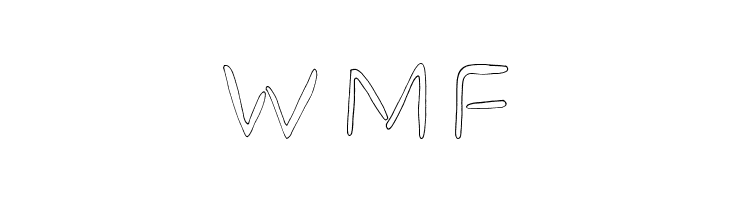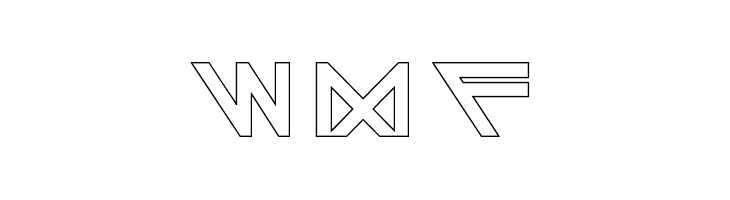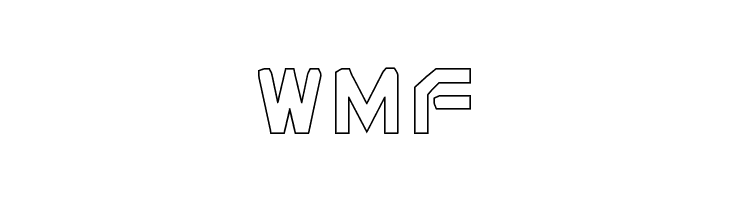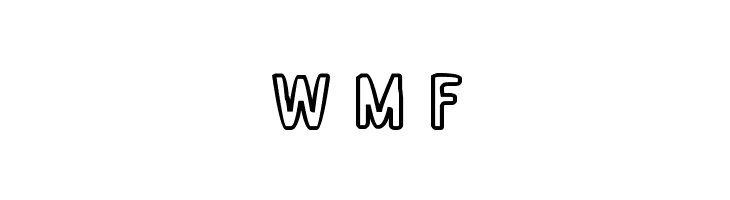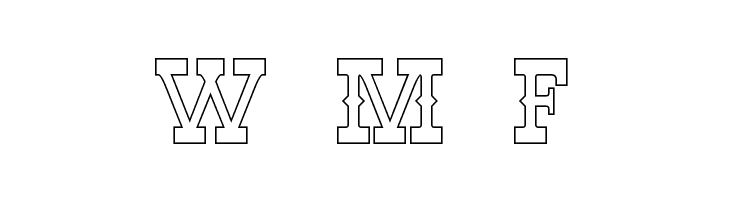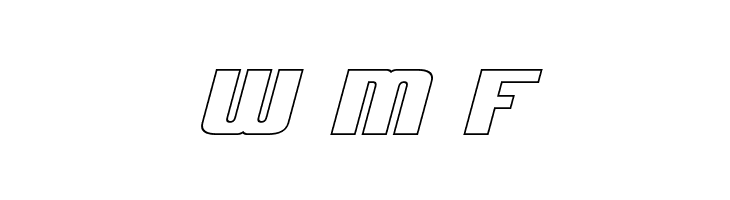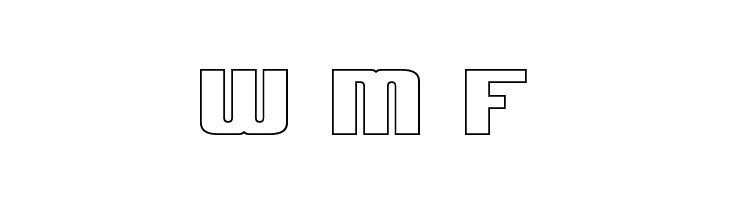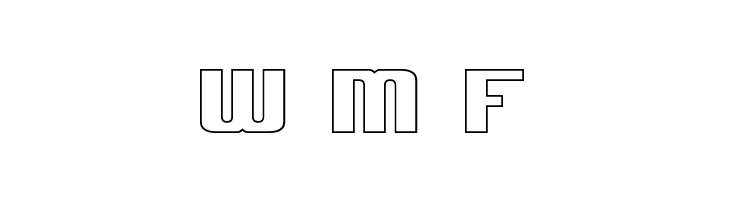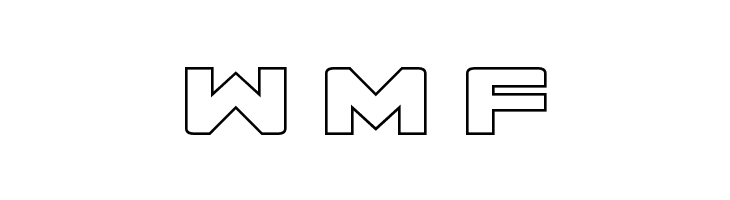
A bold, geometric font with hollow interiors and a modern, technical style.
A bold, hollow, military-inspired font with sharp angles and clean lines.
A hollow, stencil-like font with a modern, structured design.
A bold, hollow font with a modern and playful style.
A modern, hollow sans-serif font with rounded edges and consistent proportions.
A futuristic, geometric font with hollow, angular letterforms.
A futuristic, hollow, geometric font with sharp, angular letterforms.
A bold, geometric font with hollow interiors and sharp, angular lines.
A modern, hollow, geometric font with a futuristic feel.
A modern, hollow, inverse font with bold outlines and geometric shapes.
A futuristic, hollow font with smooth, continuous lines and a playful aesthetic.
A modern, hollow font with clean lines and rounded edges, offering a unique and airy appearance.
A futuristic, hollow, and geometric font with a bold outline.
A playful, modern hollow font with rounded edges and a whimsical style.
A playful, hollow, rounded font with a modern and eye-catching design.
A geometric, hollow font with a bold and modern aesthetic.
A hollow, geometric font with a modern and futuristic style.
A futuristic, hollow font with bold outlines and geometric shapes.
A futuristic, geometric hollow font with bold outlines and circular cutouts.
A modern, hollow font with rounded edges and a minimalist design.
A playful, hollow, and bubbly font with rounded characters.
A playful, hollow bubble-like font with a whimsical inverse design.
A modern, hollow font with geometric outlines and rounded edges.
A modern, hollow, inverse font with bold outlines and geometric structure.
A modern, hollow, inverse font with geometric and futuristic design.
A modern, hollow font with geometric shapes and clean lines.
A hollow, geometric font with a futuristic and playful style.
A modern, geometric hollow font with a futuristic and striking appearance.
A hollow, geometric font with a futuristic and playful design.
A futuristic, hollow, and inverse font with a digital aesthetic.
A modern, hollow font with rounded edges and geometric influences.
A modern, hollow font with geometric and playful characteristics.
A bold, geometric hollow font with a modern and futuristic style.
A bold, hollow, and geometric font with a modern, futuristic style.
A hollow, inverse font with a futuristic, geometric style.